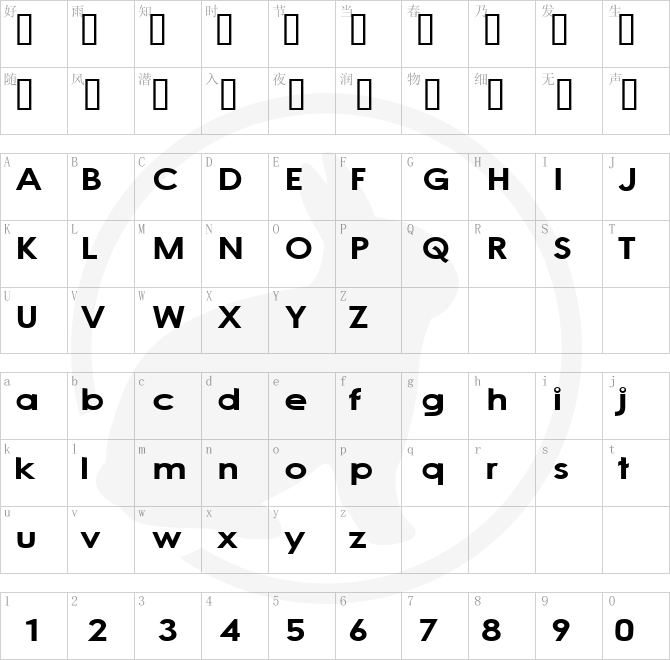
- Font Name:Cacophony Loud
Cacophony-Loud.ttf is a very beautiful artistic font, Cacophony-Loud.ttf is widely used in the design and printing of various books and pictures,Cacophony-Loud.ttf has a strong visual impact,Cacophony-Loud.ttf is a commonly used font in newspapers, magazines and books, and is used in posters, e-commerce Poster design, store design, logo design, font design and other fields.Cacophony-Loud.